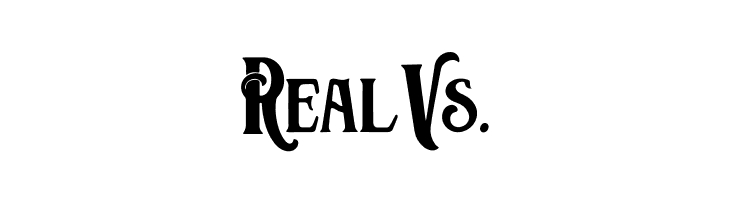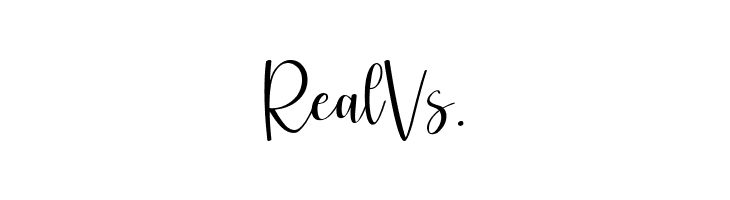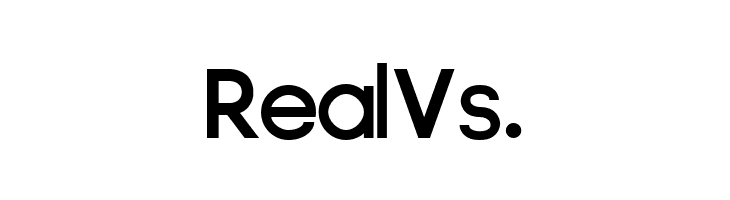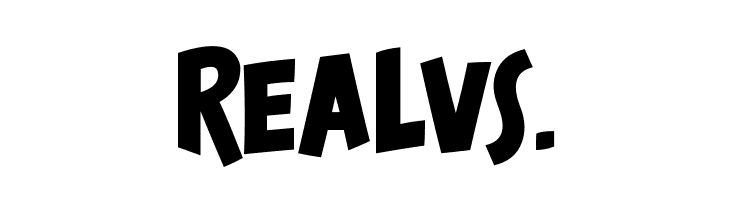
A modern, geometric font with clean lines and minimal contrast.
A modern, italicized font with a sleek, low-contrast design.
A modern, geometric outlined font with clean lines and a cohesive design.
A bold, brush-textured font with an artistic and dynamic appearance.
An artistic, elongated font with narrow letterforms and high contrast.
A rugged, hand-drawn font with an ancient, distressed appearance.
A bold, hand-drawn font with a rustic, textured appearance.
An ornate, decorative font with intricate Victorian-style detailing.
A bold, playful font with a distressed texture and climbing figures integrated into the design.
A playful, distorted font with quirky, energetic characters.
A futuristic, angular font with a digital, high-tech appearance.
A futuristic, glitch-inspired font with angular, geometric letterforms.
A bold, modern sans-serif font with geometric structure and uniform width.
A bold, italicized font with a three-dimensional, decorative style.
A bold, decorative font with a three-dimensional effect and thick outlines.
An elegant, flowing script font with smooth, cursive strokes and graceful curves.
A bold, modern sans-serif font with clean, uniform strokes.
A sleek, modern font with thin, elongated letterforms and clean lines.
A bold, decorative font with intricate swirls and flourishes.
A modern, geometric sans-serif font with a clean and minimalist style.
A bold, dynamic font with playful, energetic characters.
A playful, whimsical script font with smooth, flowing cursive letters.
A sophisticated serif font with elegant curves and distinct serifs, suitable for versatile applications.
A bold, brush-style font with an energetic and artistic flair.
A playful, hand-drawn font with a whimsical and energetic style.
A modern serif font with elegant, sharp lines and balanced proportions.
A modern, sans-serif font with clean lines and consistent stroke width.
A modern serif font with high contrast and elegant styling.
A modern, bold sans-serif font with geometric shapes and balanced proportions.
A bold, playful font with rounded edges and a friendly appearance.
A futuristic and sleek font with thin, elongated letterforms and geometric shapes.
Bold serif font with a classic style.
An ornate blackletter-style font with intricate details and historical elegance.
A playful, handwritten font with irregular strokes and a casual, approachable style.